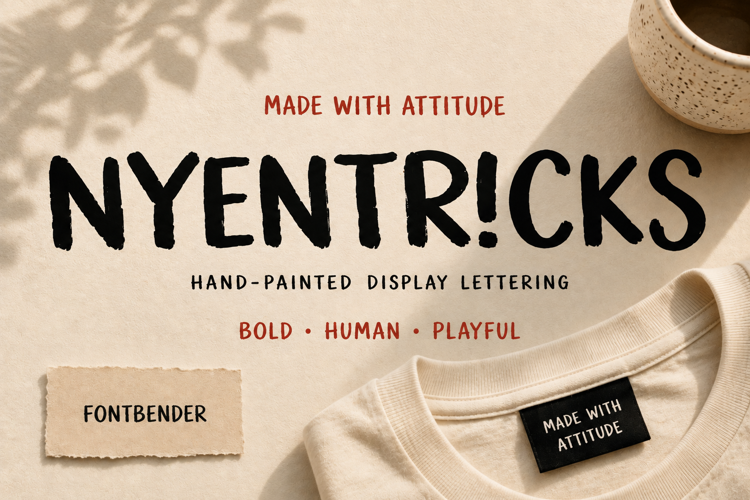
Nyentricks Font
Nyentricks – Bold Hand-Painted Display Font with Attitude
Meet Nyentricks, a bold, human, and playful hand-painted display lettering font made with attitude. Perfect for streetwear, apparel, posters, and rebellious branding. Download now!
Nyentricks is a bold, human, and playful hand-painted display typeface crafted for designs that demand personality and grit. Made with attitude, this raw, textured brush lettering font brings authentic handcrafted energy, expressive strokes, and a rebellious edge to your creative projects.
Whether you're designing urban streetwear apparel, edgy product packaging, bold event posters, or stand-out branding, Nyentricks offers the organic texture and street-style character needed to make your artwork pop.